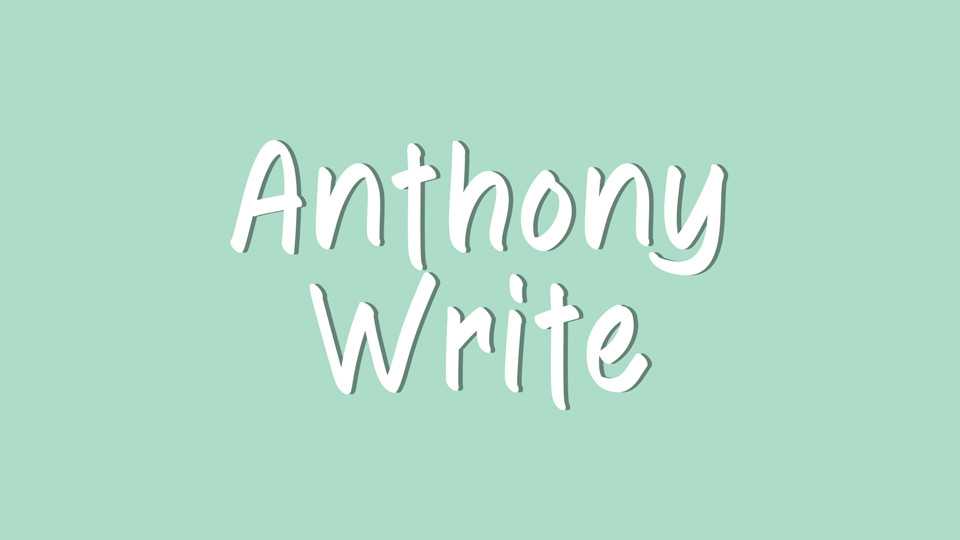
Download Anthony Write font, a simple and casual handwritten typeface that looks very natural. Whether it’s for comics, notes, design crafts, or creative ideas, Anthony Write font will bring personal and organic look to any project.